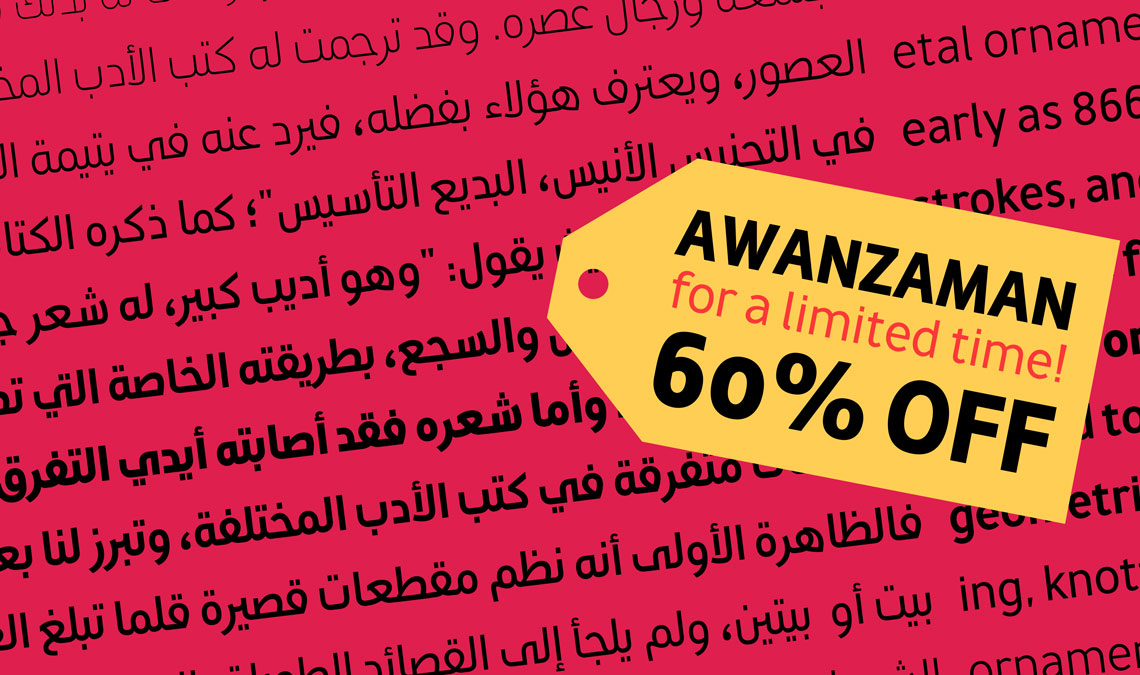
Log in now to take advantage of the AwanZaman flash sale! For the next 14 days only, get a 60% discount on the full AwanZaman family, the clever dual-script sans begun in geometric Arabic, then cleverly and harmoniously advanced into Latin. This seven-weight powerhouse makes extensive use of OpenType’s stylistic sets (20 in the Arabic and four in the Latin) so writers and designers can make the most of everything from a single glyph in display sizes down to dense text in paragraphs. Grab the family now before this deal is over!